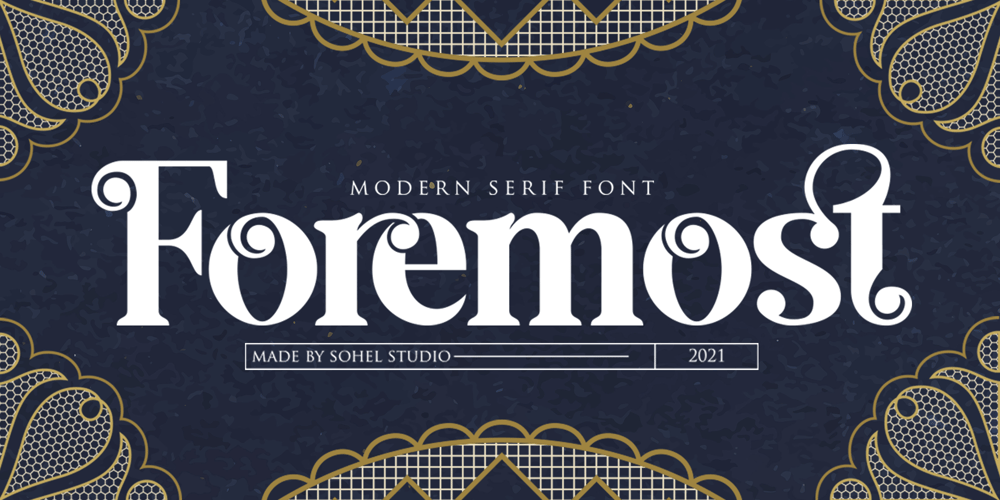
Foremost Font Family was designed by Akhmad Husain Rifa’i and published by Sohel Studio. Foremost contains 2 styles and family package options. Foremost is a classy, bold upper and lowercase typeface that looks incredible in both large and small settings. Best used as a display for headings and logos, Foremost clean lines and smooth curves give any project an extra touch of class. a serif modern and classic typeface that has own unique style & modern look. This typeface is perfect for an elegant & luxury logo, book or movie title design, fashion brand, magazine, clothes, lettering, quotes, and so much more. Features:- 2 Weights font (Regular and Italic)- Lowercase and Uppercase- Beautiful Alternates & Ligatures- Numerals & Punctuation- Accented characters- Multilingual HOW TO ACCESS ALTERNATE CHARACTERS- Open glyphs panel:- In Adobe Photoshop go to Window – glyphs- In Adobe Illustrator go to Window – Type – glyphs I really hope you’ll get pleasure using Foremost font and it will be perfect addition to your font collection! Contact me with an inbox message If you have any question. Thank you and enjoy!